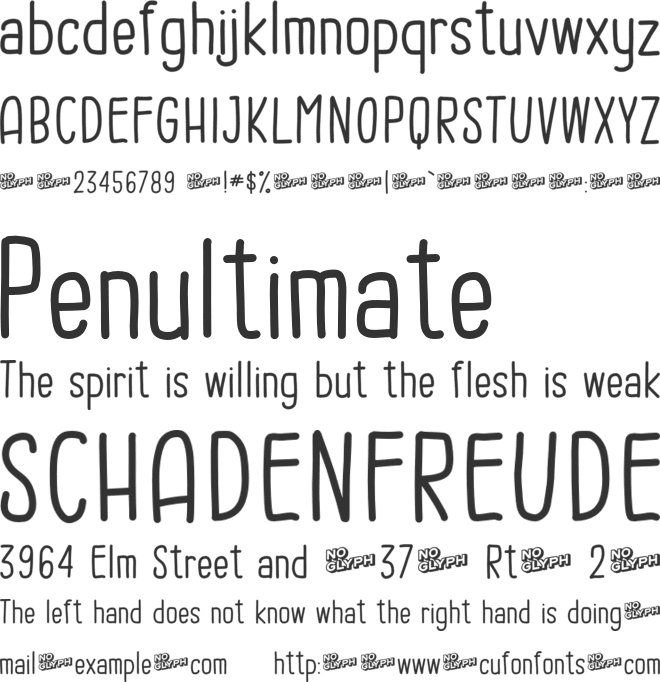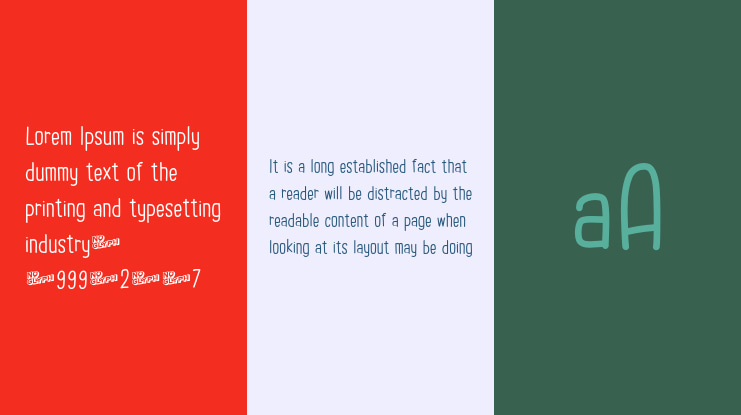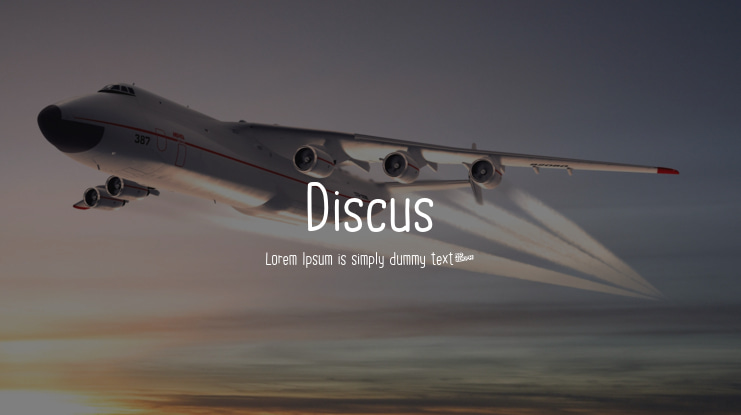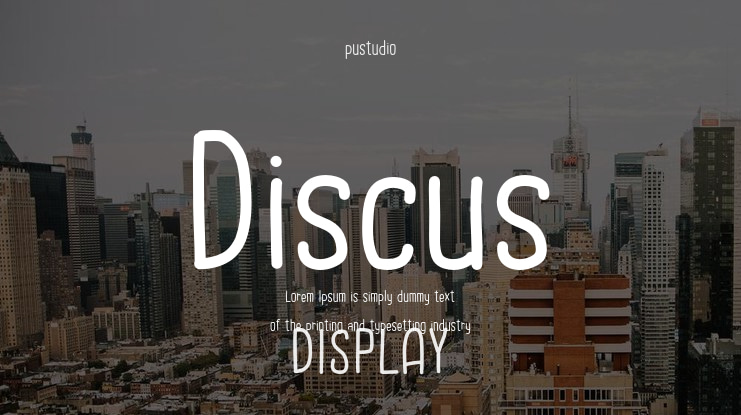
Discus Font
Discus is a hand-drawn sans-serif font that exudes a natural and organic aesthetic. These typefaces often feature imperfections in their letter shapes and strokes, resembling genuine human handwriting.
Due to its innate charm, this font conveys a spontaneous appearance, making it ideal for designs centered around a natural or everyday theme such as posters or greeting cards.
Moreover, this font imparts a warm and inviting vibe to the written text, as if it were crafted by hand. In addition, handwritten sans-serif fonts add a personal and artistic flair to graphic projects, enhancing their appeal for showcasing creativity and individuality.